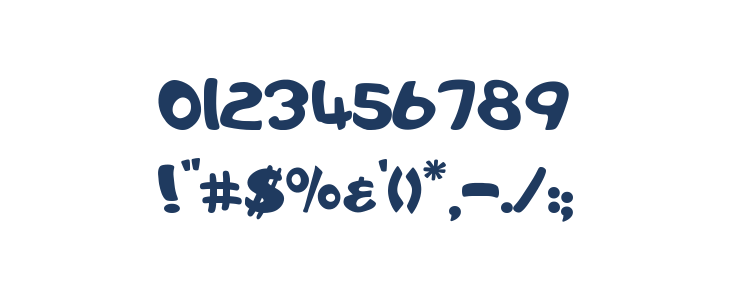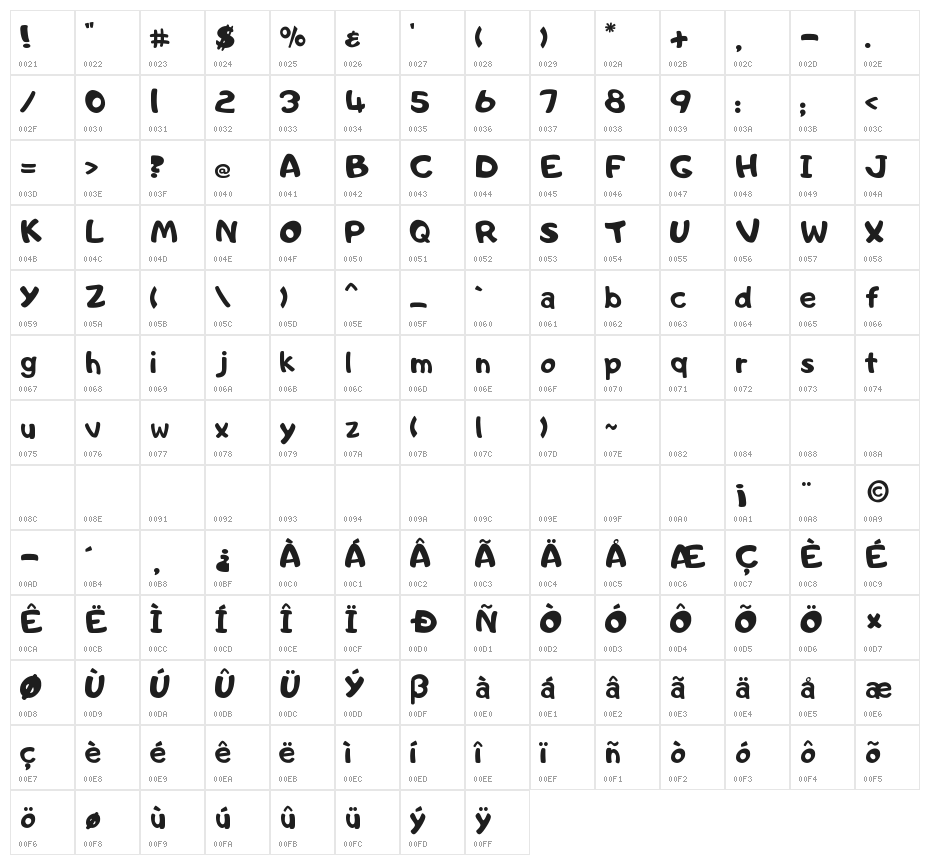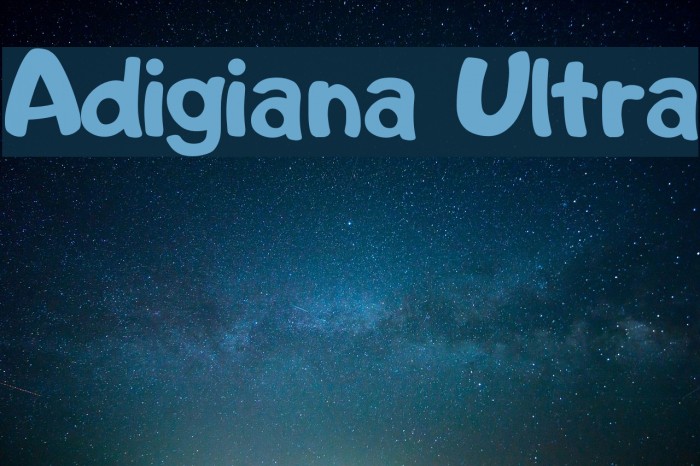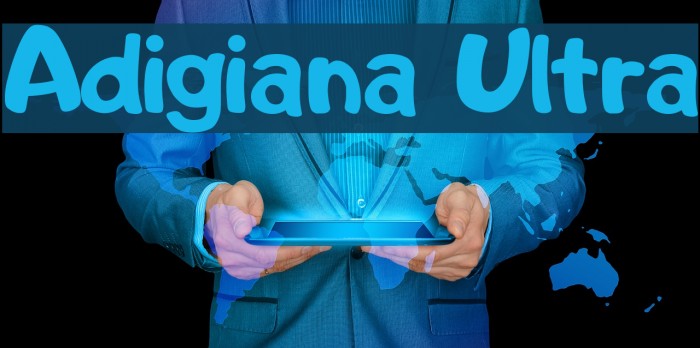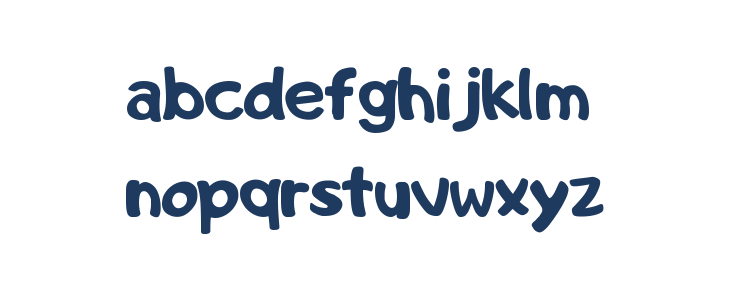
Adigiana Ultra Font
Adigiana Ultra Description
This playful and bold font features rounded, thick strokes that give it a friendly and approachable appearance. The characters are slightly irregular, adding a whimsical touch to the overall design. The uppercase and lowercase letters maintain a consistent style, with a noticeable emphasis on curves and rounded edges. The numbers and special characters follow the same design principles, ensuring uniformity across all glyphs. This font's unique style makes it suitable for projects that require a fun and informal tone.
| Proposed Projects | Ideal for children's books, playful branding, casual invitations, and creative posters. |